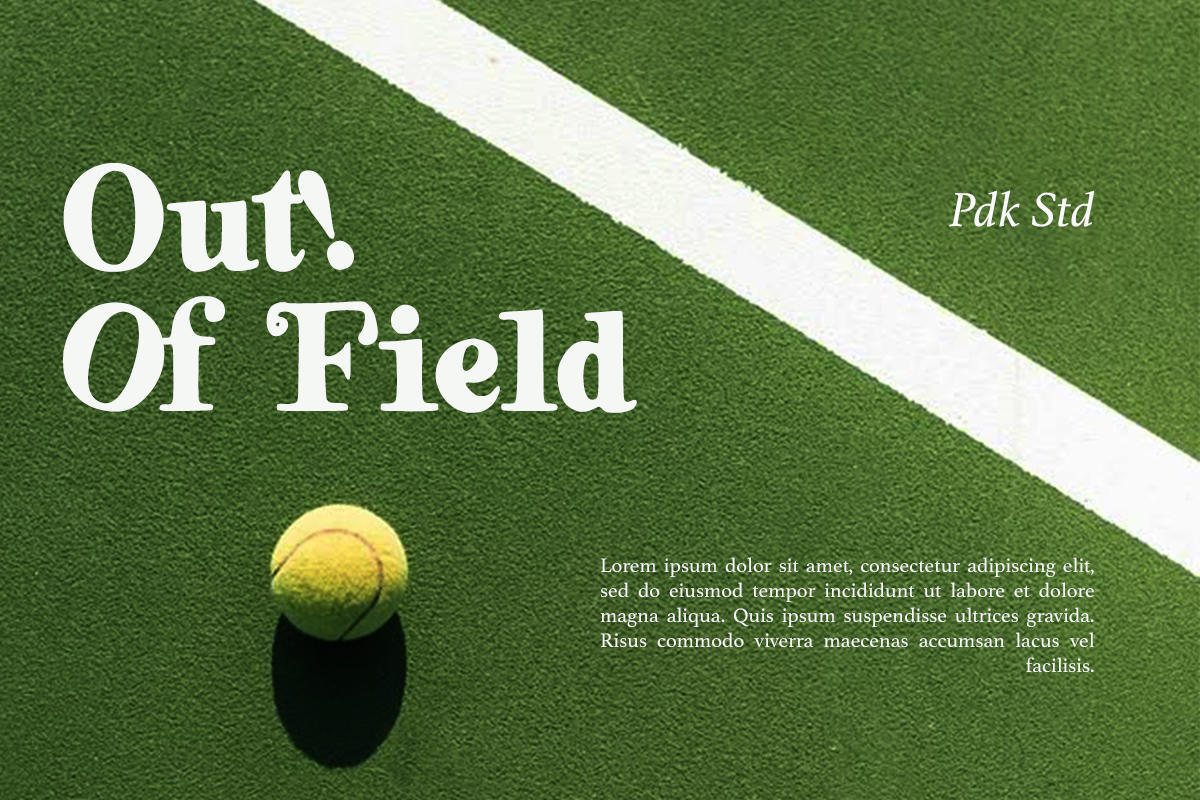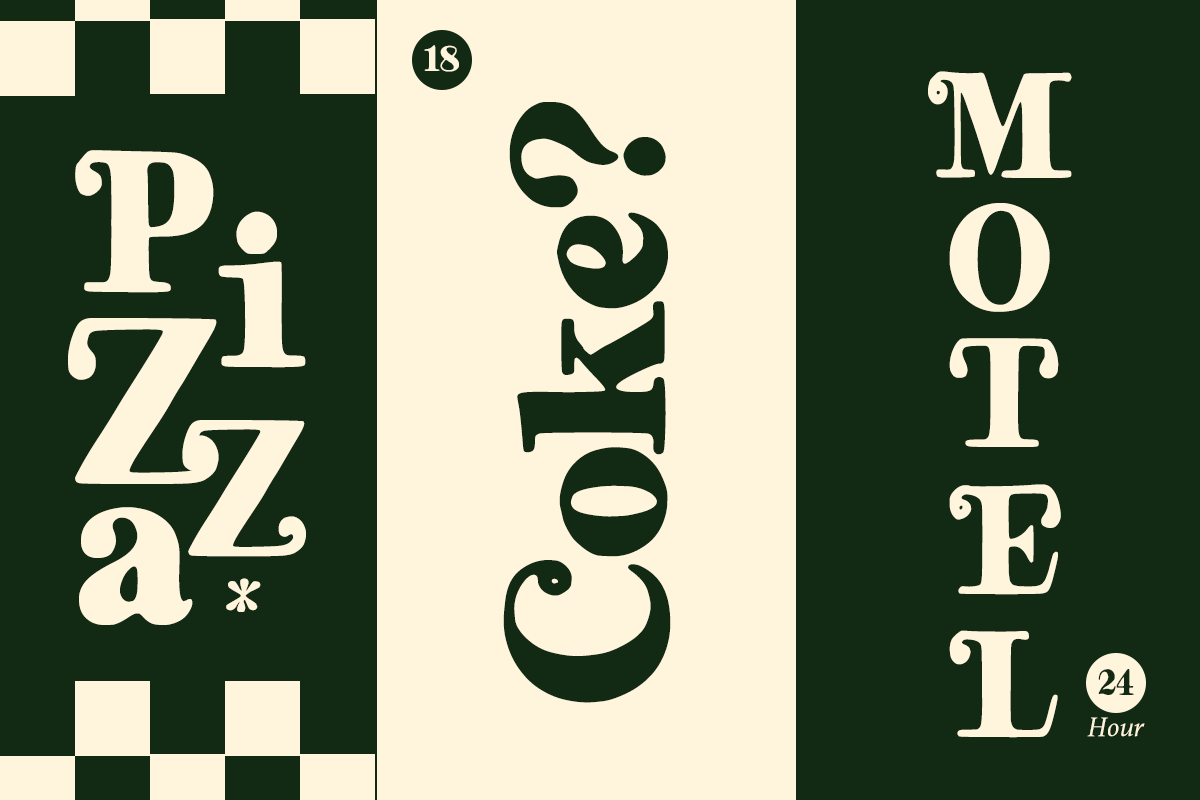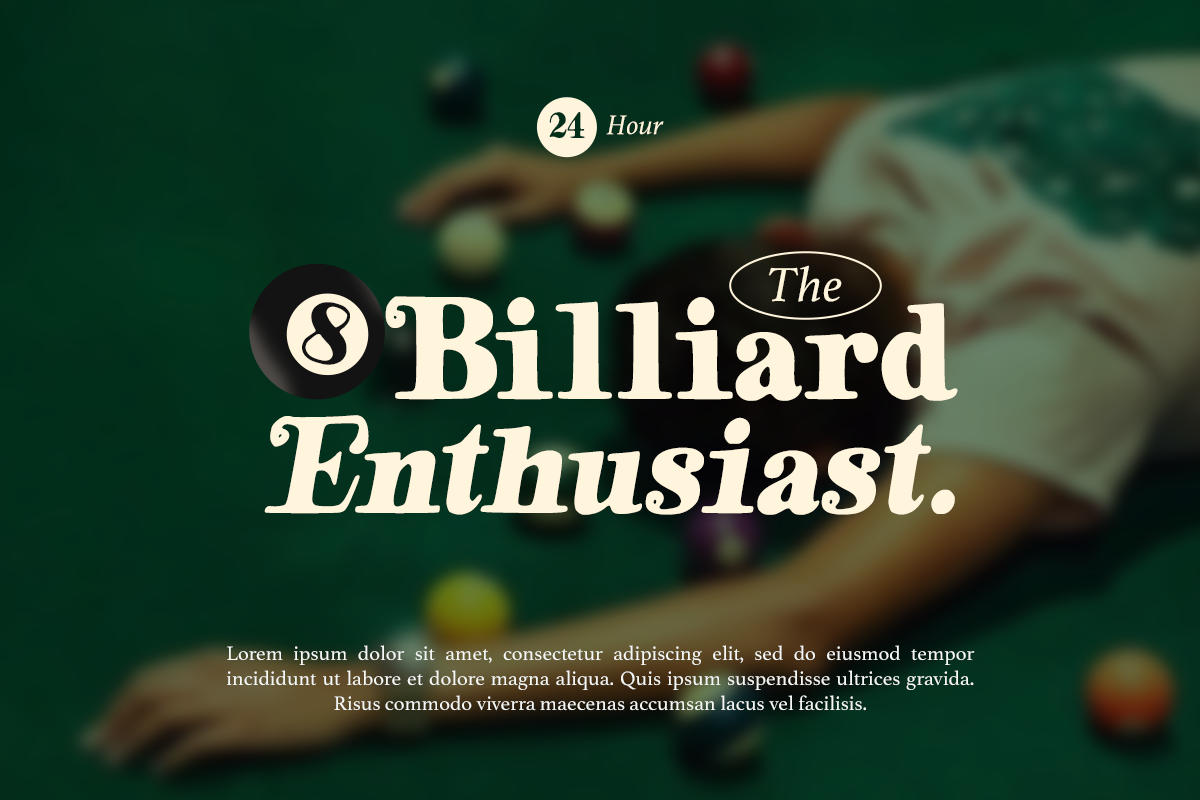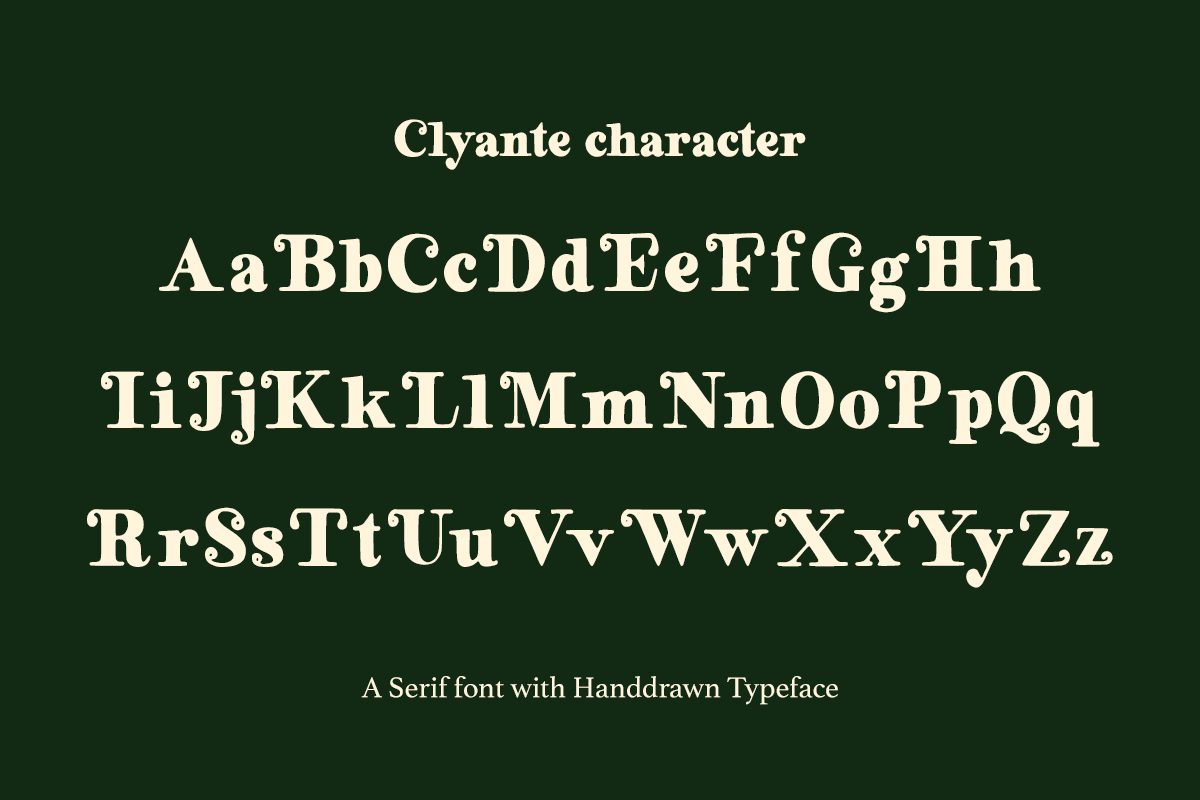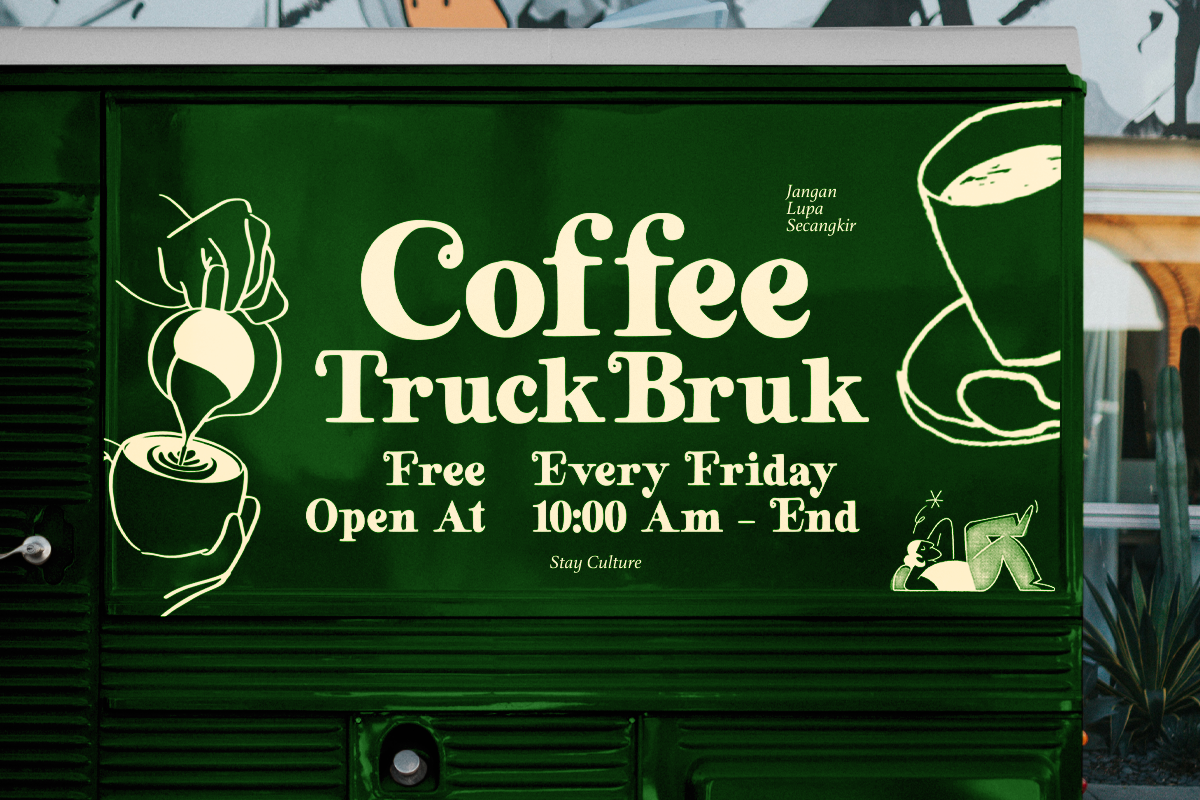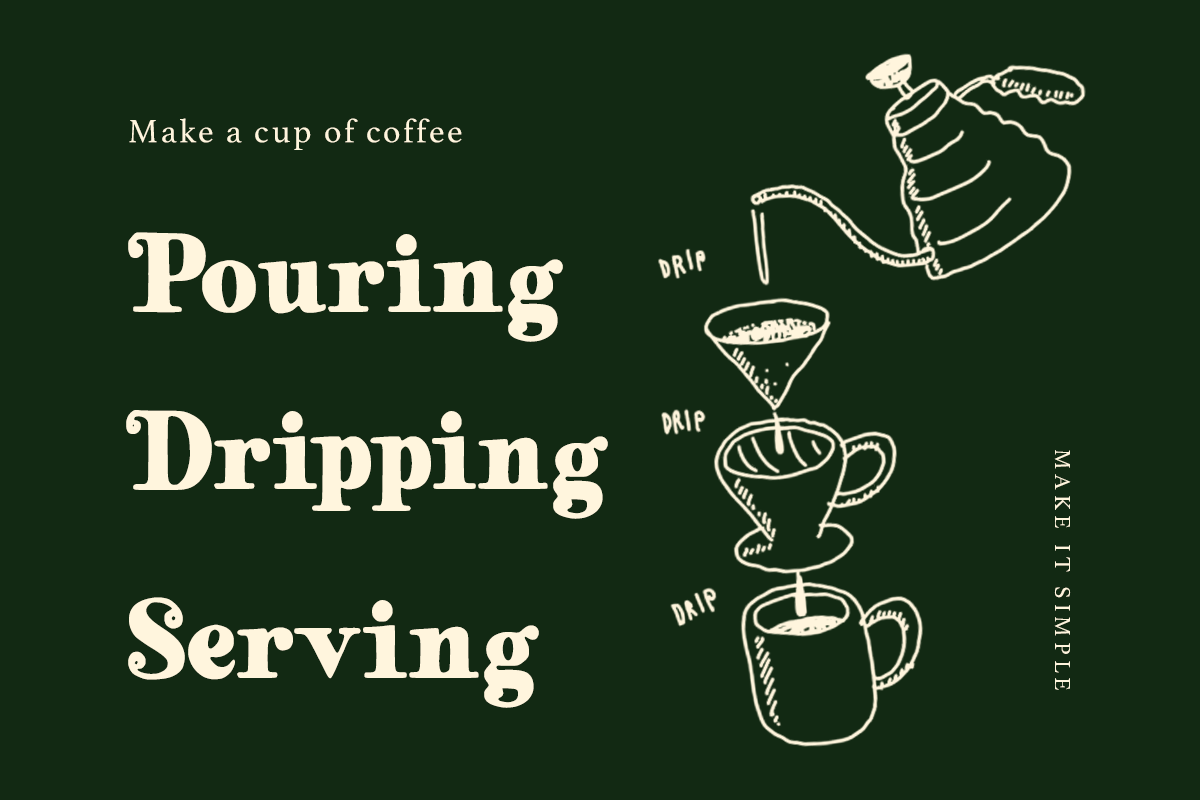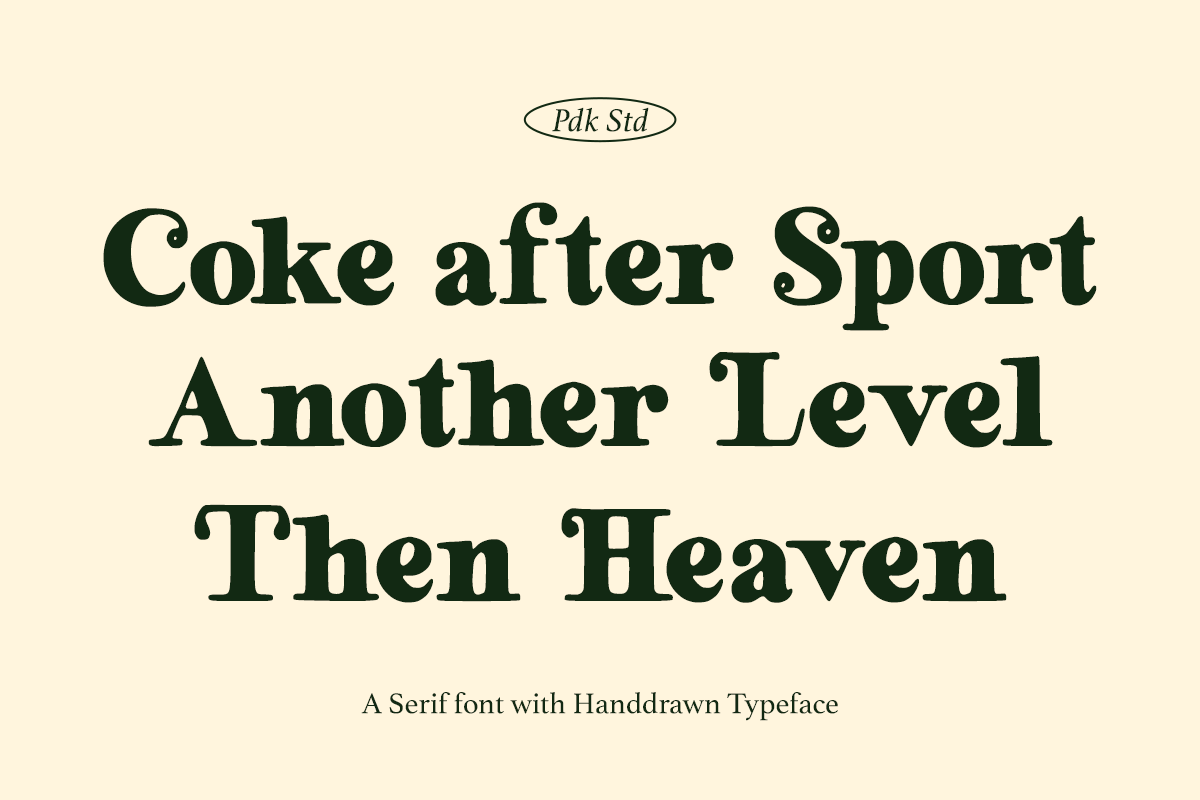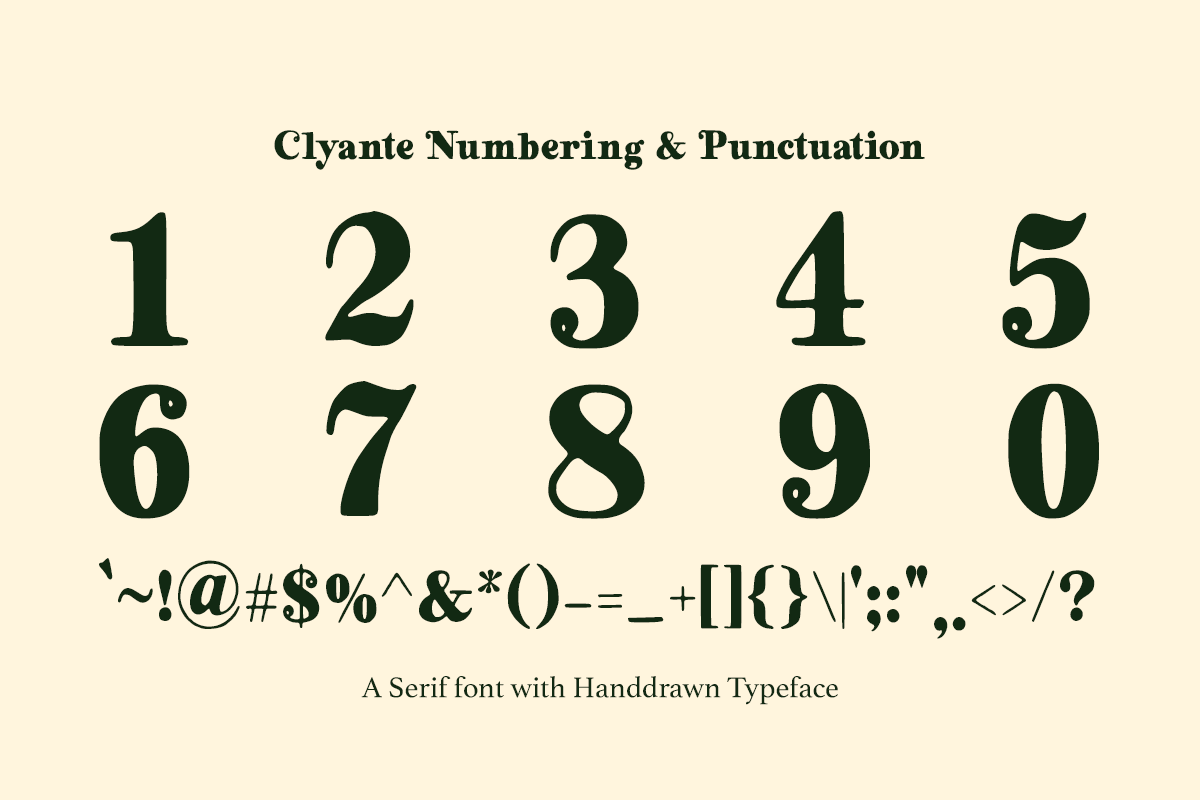
Clyante - Vintage Serif Handdrawn
Clyante is a hand-drawn serif typeface that merges retro charm with casual elegance. With its bold curves, quirky terminals, and slightly uneven strokes, Clyante offers a distinctively human feel—perfect for designs that seek both authenticity and flair.
Ideal for editorials, packaging, sports branding, retro signage, coffee shops, and vintage promotions, Clyante brings personality to your layouts. It comes with a full character set, including uppercase, lowercase, numbers, punctuation, and special glyphs, and supports multilingual use.
Clyante makes words look playful yet refined—whether you're promoting tennis tournaments, soda pop, or hand-brewed coffee.